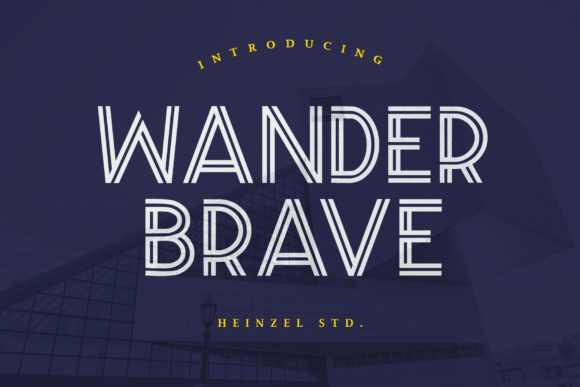
Step into the world of Wander Brave, a timeless display font that will ignite your creative spirit. Experience the beauty of classic typography with a modern twist. Allow your designs to embark on an extraordinary journey, guided by the bold strokes and captivating curves of Wander Brave.
Beyond its aesthetic charm, Wander Brave possesses the versatility to adapt to a myriad of design projects. Its strong personality shines through in logos, posters, and branding, commanding attention and leaving a lasting impression. Dive into the realm of editorial design and let Wander Brave's elegant characters dance across magazine pages and book covers, captivating readers with their timeless allure.
Embrace the digital realm with Wander Brave, crafting captivating social media graphics and website designs that resonate with your audience. Unleash your creativity in designing stunning invitations, greeting cards, and personalized gifts that will be treasured for years to come.
Wander Brave is more than just a font; it's an artistic voyage that will transport your designs to new heights of visual appeal. Its timeless design transcends trends, ensuring that your creations remain relevant and captivating for years to come.
With Wander Brave as your creative companion, embark on a journey of self-expression and design excellence. Its versatility and timeless appeal will inspire you to create masterpieces that captivate and enchant. Let Wander Brave guide you on your creative odyssey, leaving an indelible mark on the world of design.